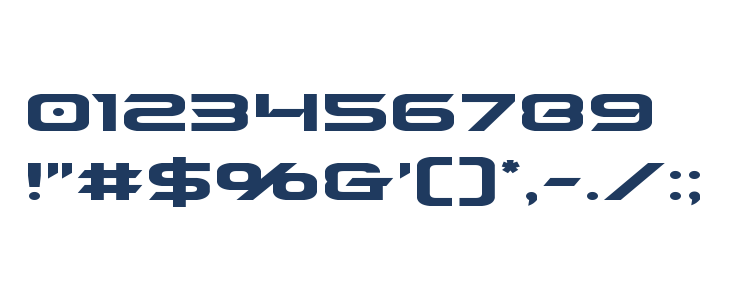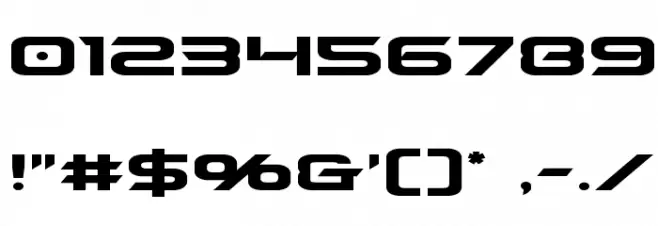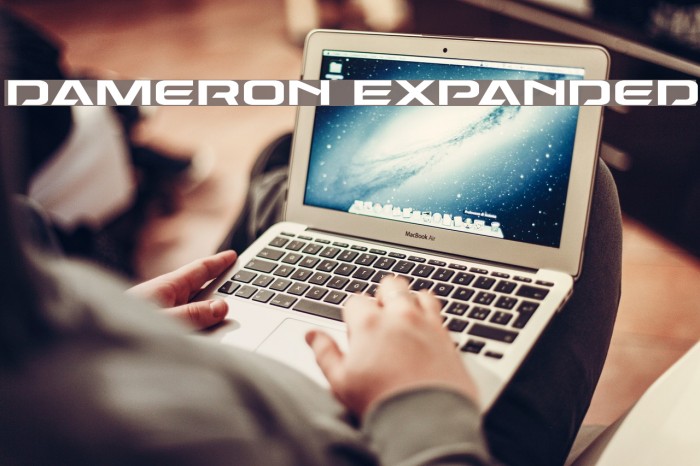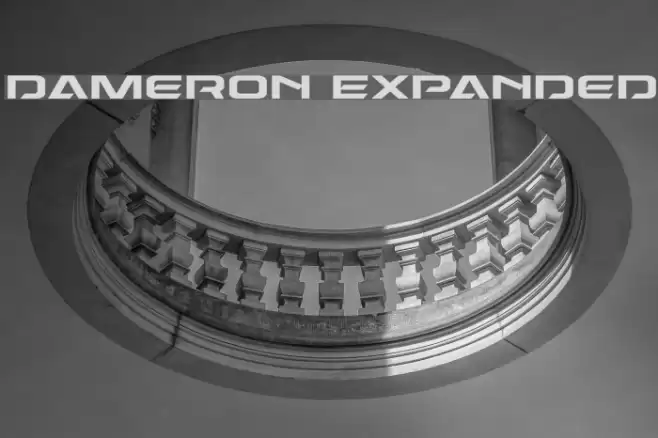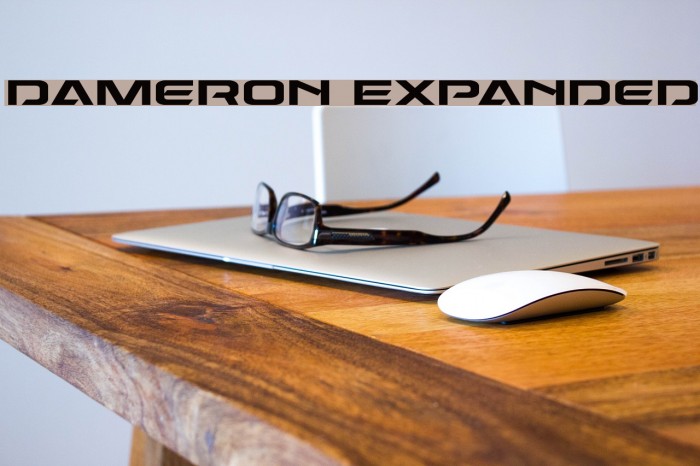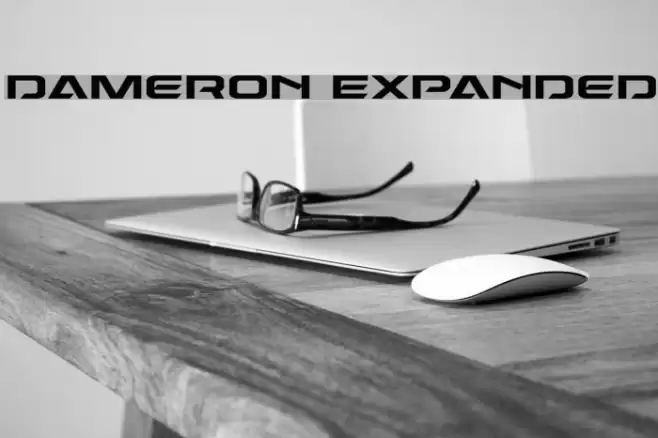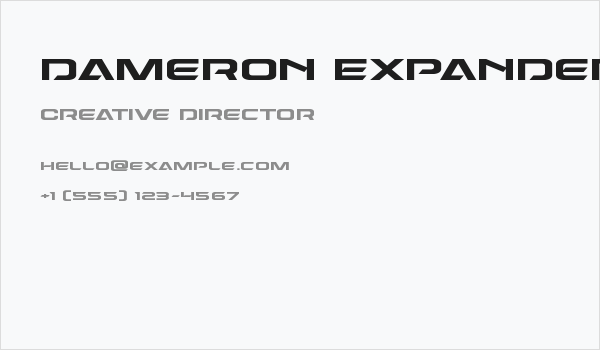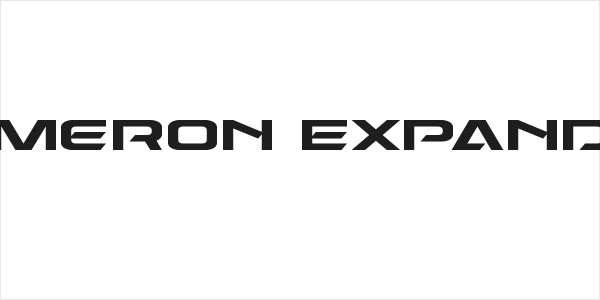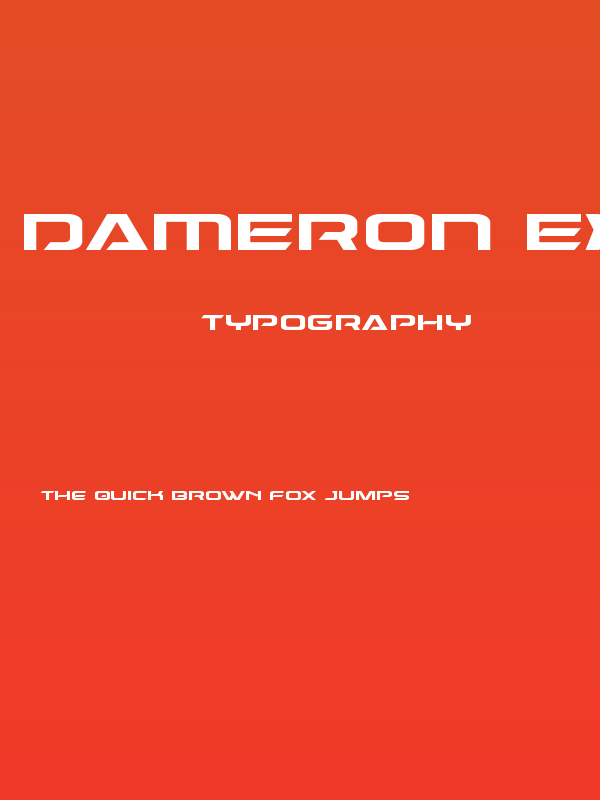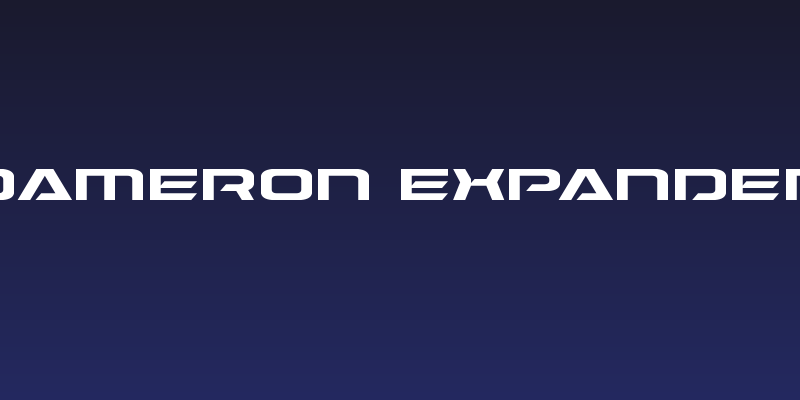
Dameron Expanded Font
Dameron Expanded Description
This font features a futuristic and geometric design, characterized by its sharp angles and clean lines. The uppercase letters are bold and wide, giving a sense of strength and modernity. The lowercase letters maintain the same geometric style, ensuring consistency throughout the typeface. The numbers are equally bold, with a distinct style that complements the letters. Special characters are designed to match the overall aesthetic, making this font suitable for a variety of applications. Its expanded width and unique style make it stand out, ideal for projects that require a modern and impactful look.
| Proposed Projects | Ideal for sci-fi themed designs, technology branding, video game titles, and modern advertising. |